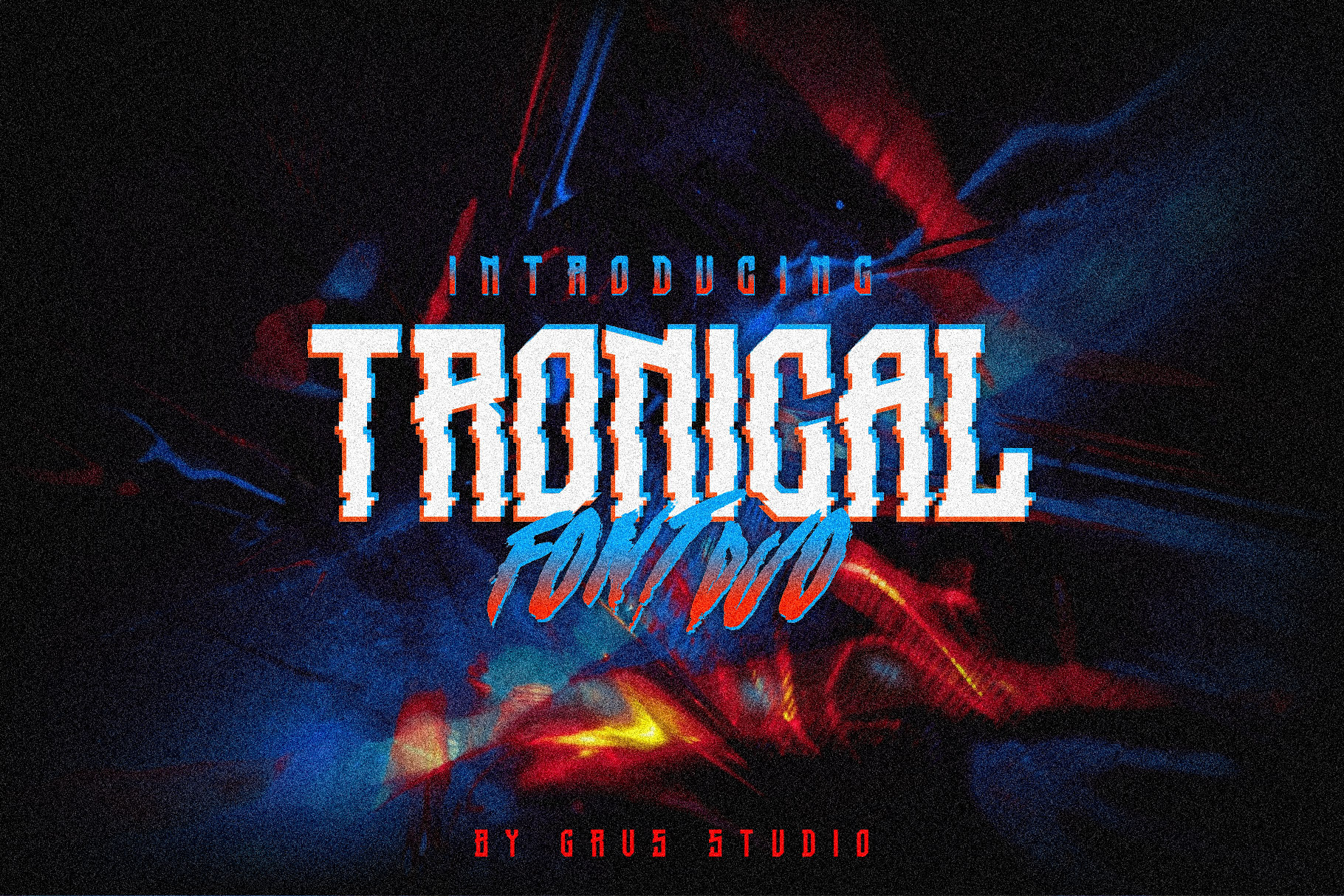
GRVS-Tronical Font Duo
GRVS Tronical Duo font, is our new item that suitable for your team logo, or community logo.
Great for Logo, Sticker, Jersey, Invitation Card, Brochure, etc.